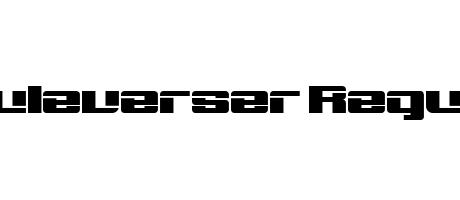
Bouleverser
Bouleverser Regular is a bold, geometric sans-serif typeface. Its thick, blocky letterforms possess a strong, almost mechanical feel. Slight variations in stroke width add subtle texture, preventing monotony. The overall impression is one of assertive modernity and striking visual impact. It's ideal for headlines and branding requiring strong visual presence.